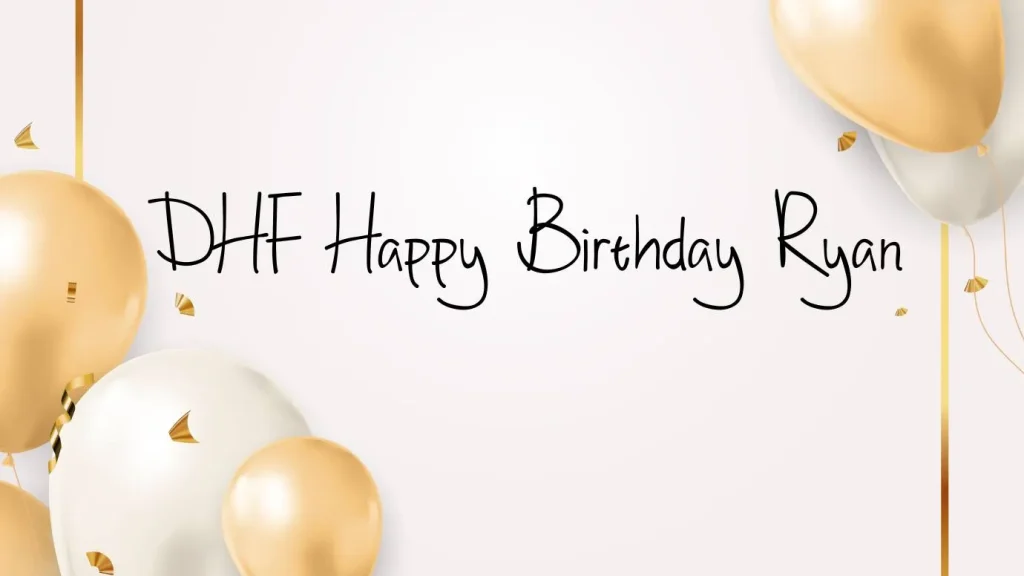
DHF Happy Birthday Font is a script design that was created by Dexsar Harry Anugrah. There are 94 sharp glyphs in this typeface, including digits and common punctuation. It features 1024 units per em and more than 101 distinct glyphs.
This font’s glyphs work best for a variety of text needs. Characters in this typeface have a nice aesthetic sense that works best for many design applications.
DHF Happy Birthday Ryan Font Family
DHF Happy Birthday Font Usages
This fascinating typeface can be used to create a variety of formal company, institution, and other well-known brand logo designs. For the purpose of designing the personal type of tasks, this typeface is free. It is ideal for use in creative designs.
A variety of name designs, signature designs, postcard designs, and magazine cover designs can all benefit from the use of this typeface. The pt serif font can be employed to craft exceptional designs with great impact.
This fascinating typeface can be used to create lovely designs for greeting cards, advertisements, presentations, autographs, and other purposes.
This typeface appears in many journals such as books, publications, and journalists. It’s also a good option for headlines and body text. Such typeface inspires every company and enterprise.
This typeface is better for symbols of several institutions. The typeface can additionally be used for e-books, poster creation, banners, brochure layouts, etc. It can be used for several ventures.
Info about DHF Happy Birthday Ryan Font
| Name | DHF Happy Birthday Ryan Font |
| Designer | Dexsar Harry Anugrah |
Is DHF Happy Birthday typeface readable style?
DHF Happy Birthday is a highly readable typeface planned with to fulfill the needs of the content.
Where can I use DHF Happy Birthday Font?
This fascinating typeface can be used to create lovely designs for greeting cards, advertisements, presentations, autographs, and other purposes.
Who designed DHF Happy Birthday Font?
This script design is created by Dexsar Harry Anugrah.